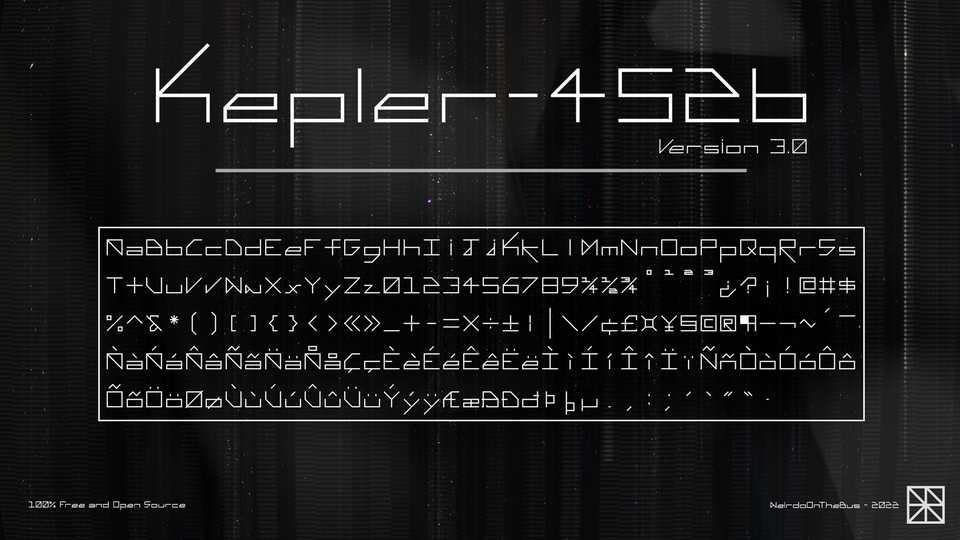
Download Kepler-452b font, a futuristic, minimalist typeface. Each character of Kepler-452b has been carefully crafted for optimal legibility and style.